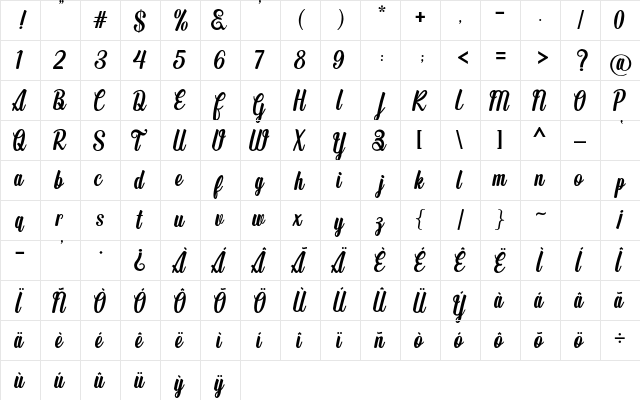
The Butterplay Regular
Design Context for The Butterplay Typeface
The Butterplay is a composed and adaptable typeface that performs quietly and consistently across a wide range of design contexts.